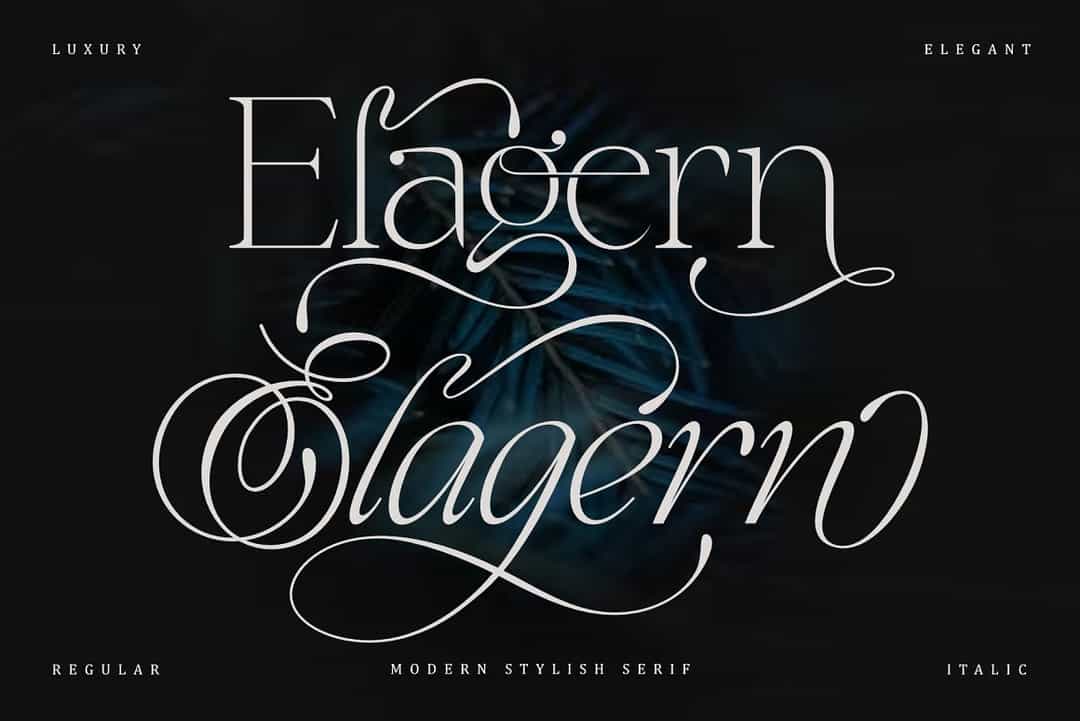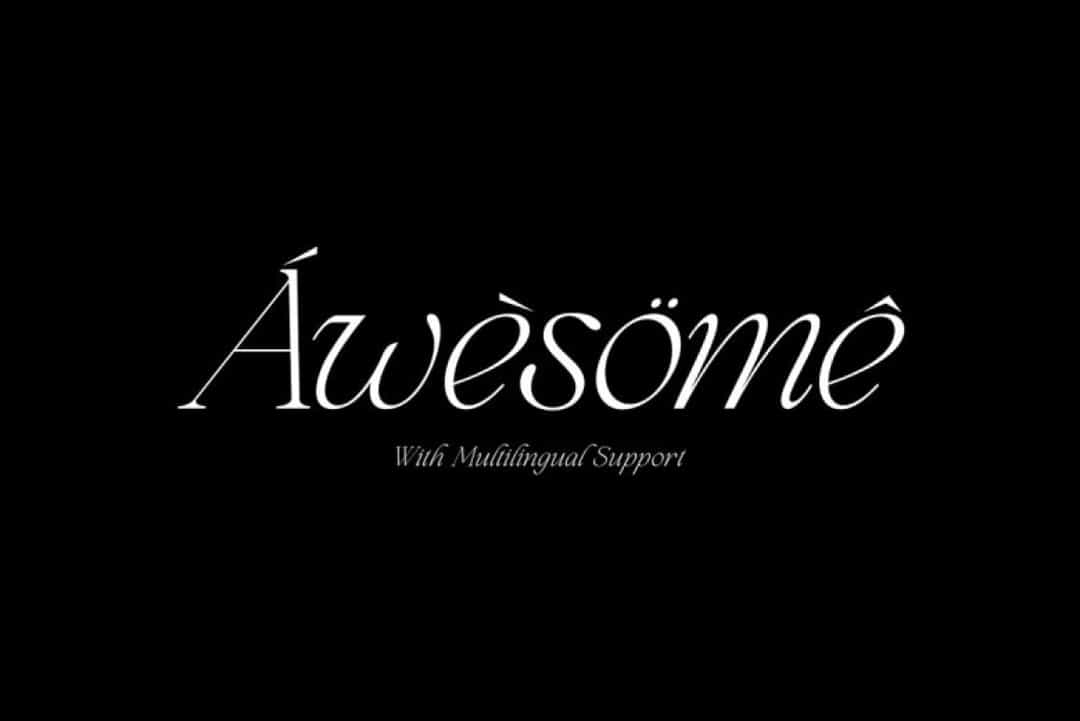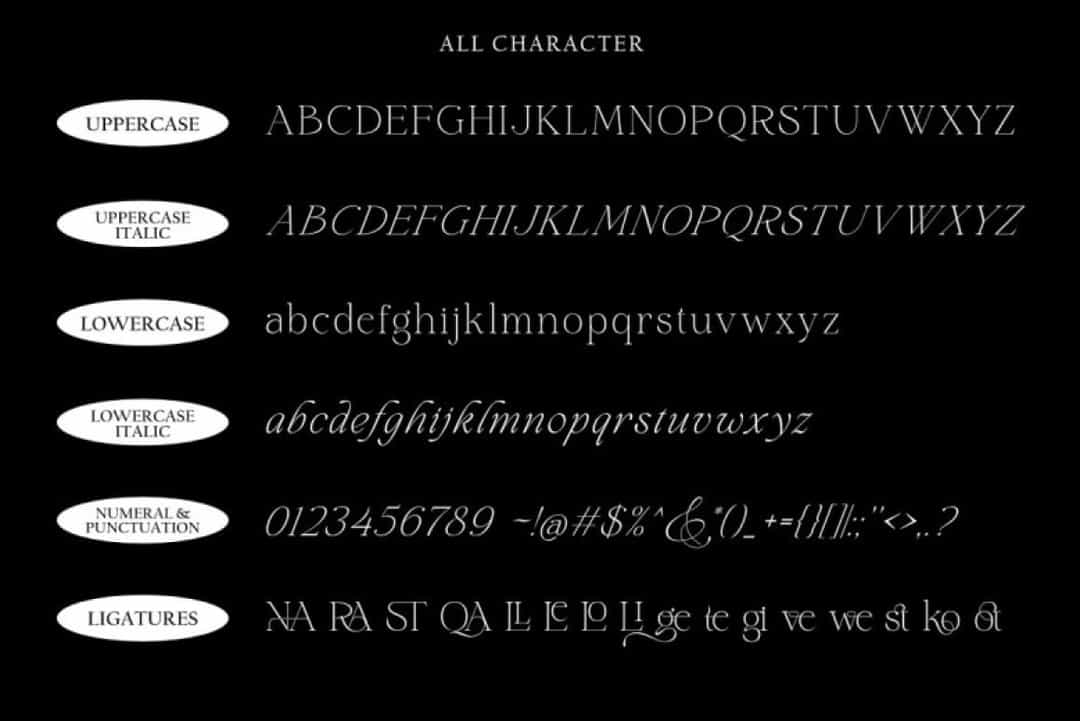
Elagern is an elegant serif typeface with a sophisticated modern and contemporary aesthetic, featuring multiple alternatives and ligatures that makes it flexible enough to suit many different purposes. With its elegant serifs and traditional proportions, this typeface makes an excellent choice for headlines as well as body text – making Elagern an excellent option for any project!